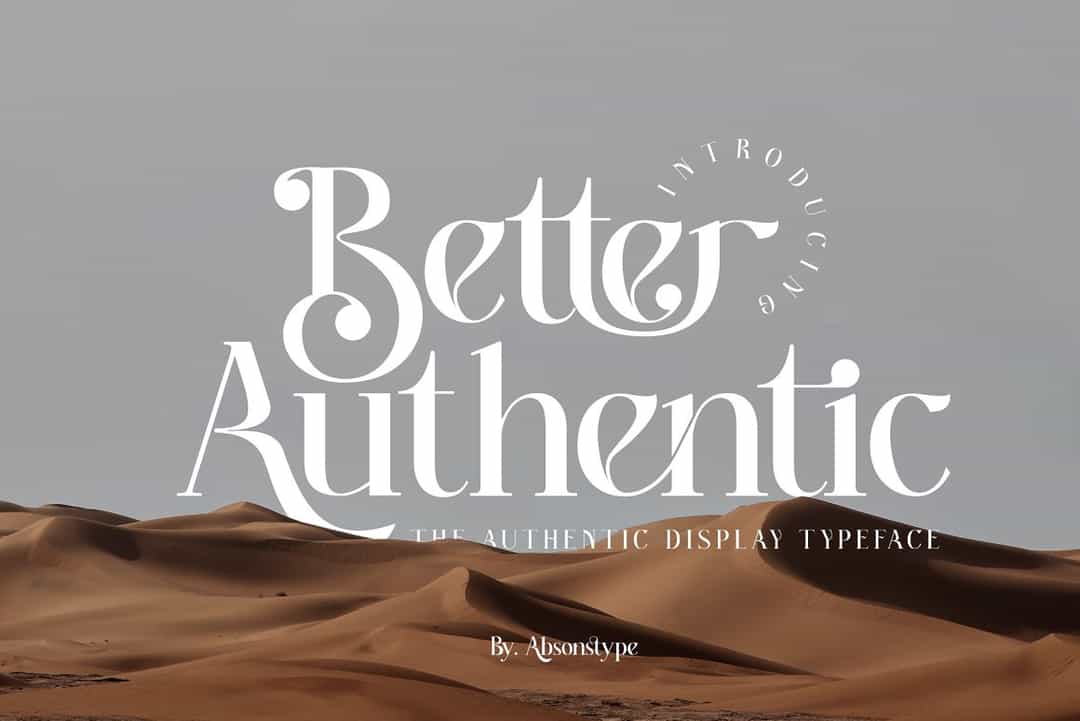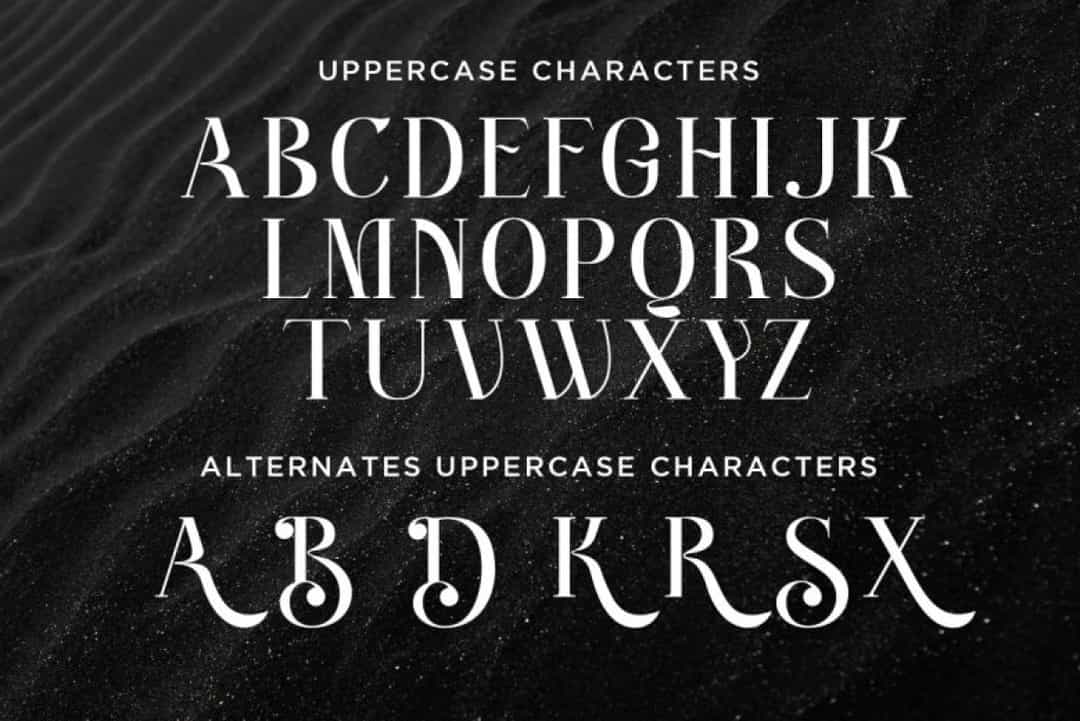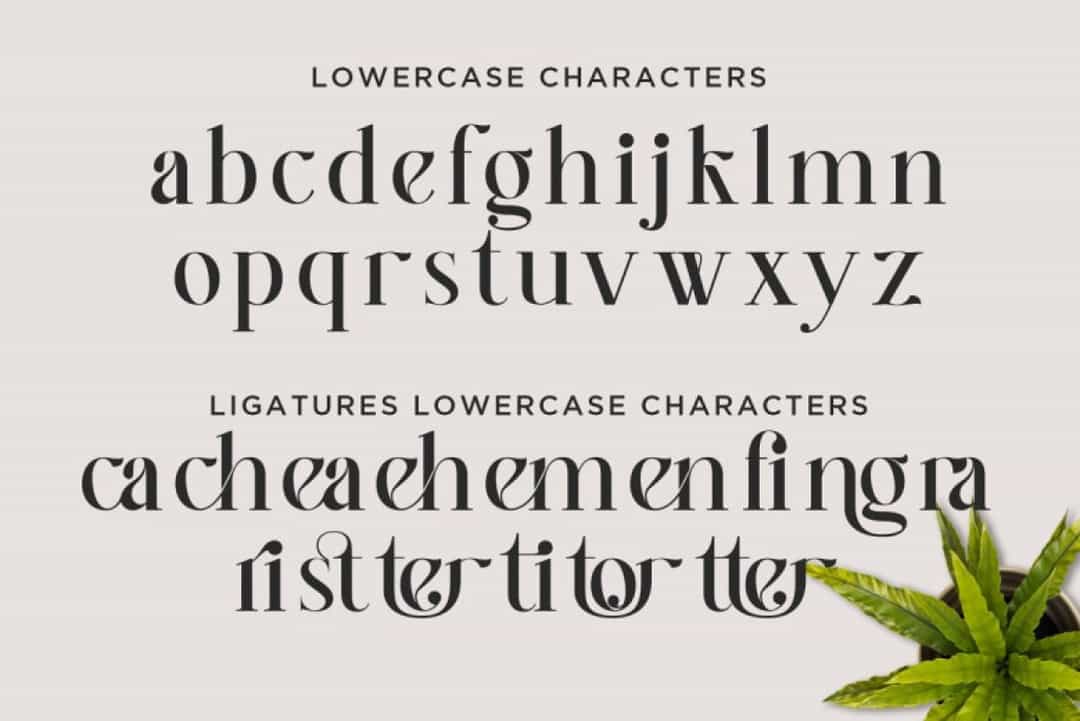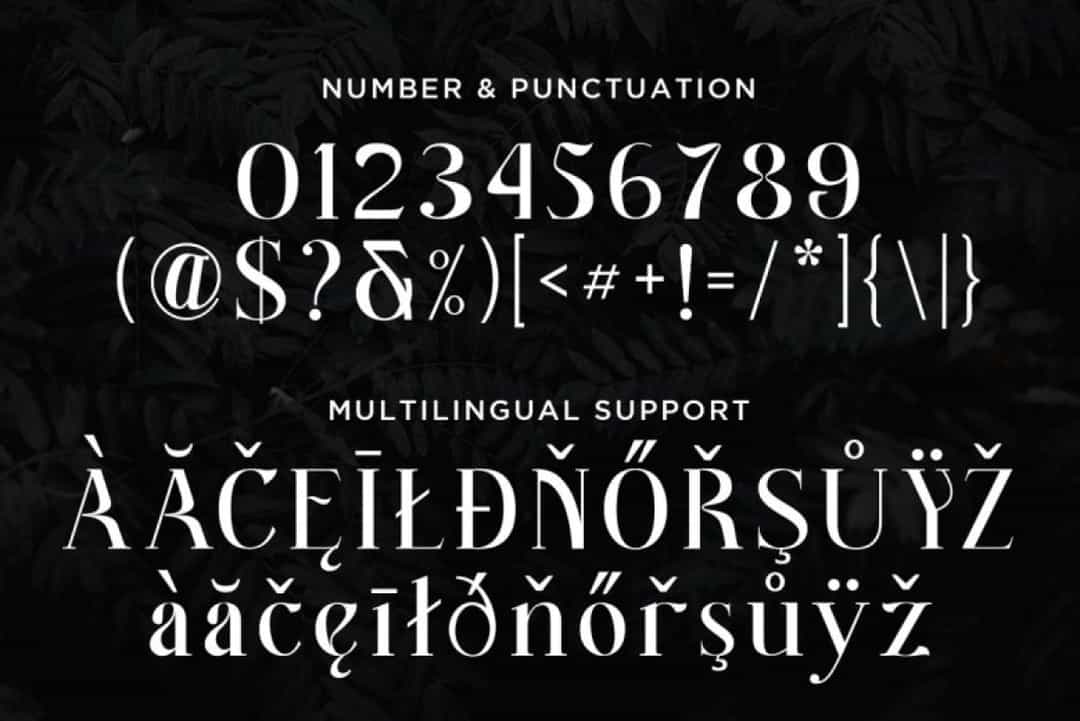
Better True is an attractive serif typeface featuring uppercase and lowercase designs which combine in an ideal balance, providing a pleasant reading experience. Ligatures and alternate font styles come together to form a pleasing design which makes this font perfect for posters, headlines, logos packaging T-shirts etc.